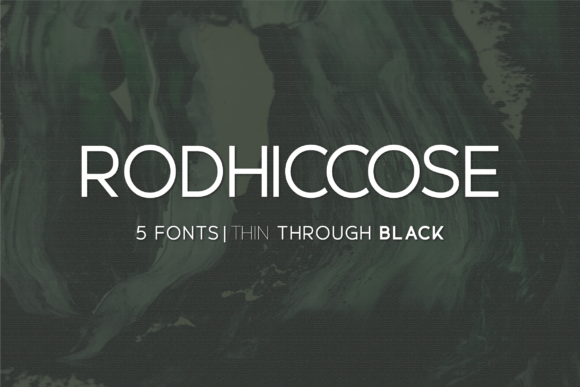
Introducing Rodhiccose, the font family that will revolutionize your design game. Created by the talented minds at Huntype, this sans serif masterpiece is the epitome of elegance, modernity, and versatility. With its five distinct weights - THIN, LIGHT, REGULAR, BOLD, and BLACK - Rodhiccose opens up a world of creative possibilities for designers and content creators alike.
Looking to create a logo that will leave a lasting impression? Look no further. Rodhiccose has been specifically designed to be the best font for logo design in 2017. Its sleek and sophisticated appearance will instantly elevate your brand identity, making it unforgettable in the eyes of your audience.
But don't let its elegance fool you - Rodhiccose is not afraid to make a bold statement. Whether you want to add a touch of subtle delicacy or make a powerful impact, this font family seamlessly blends sophistication with contemporary style. No matter the project, Rodhiccose ensures that your designs will shine with distinction.
What truly sets Rodhiccose apart is its unrivaled versatility. It effortlessly adapts to any design context, making it suitable for a wide range of applications. From websites to social media graphics, print materials to advertising campaigns, this font family has got you covered.
Not only is Rodhiccose visually stunning, but it also carries a sense of emotion that will captivate your audience. Its timeless appeal evokes feelings of trust, reliability, and professionalism. With every letter, Rodhiccose tells a story and creates a connection with your target audience.